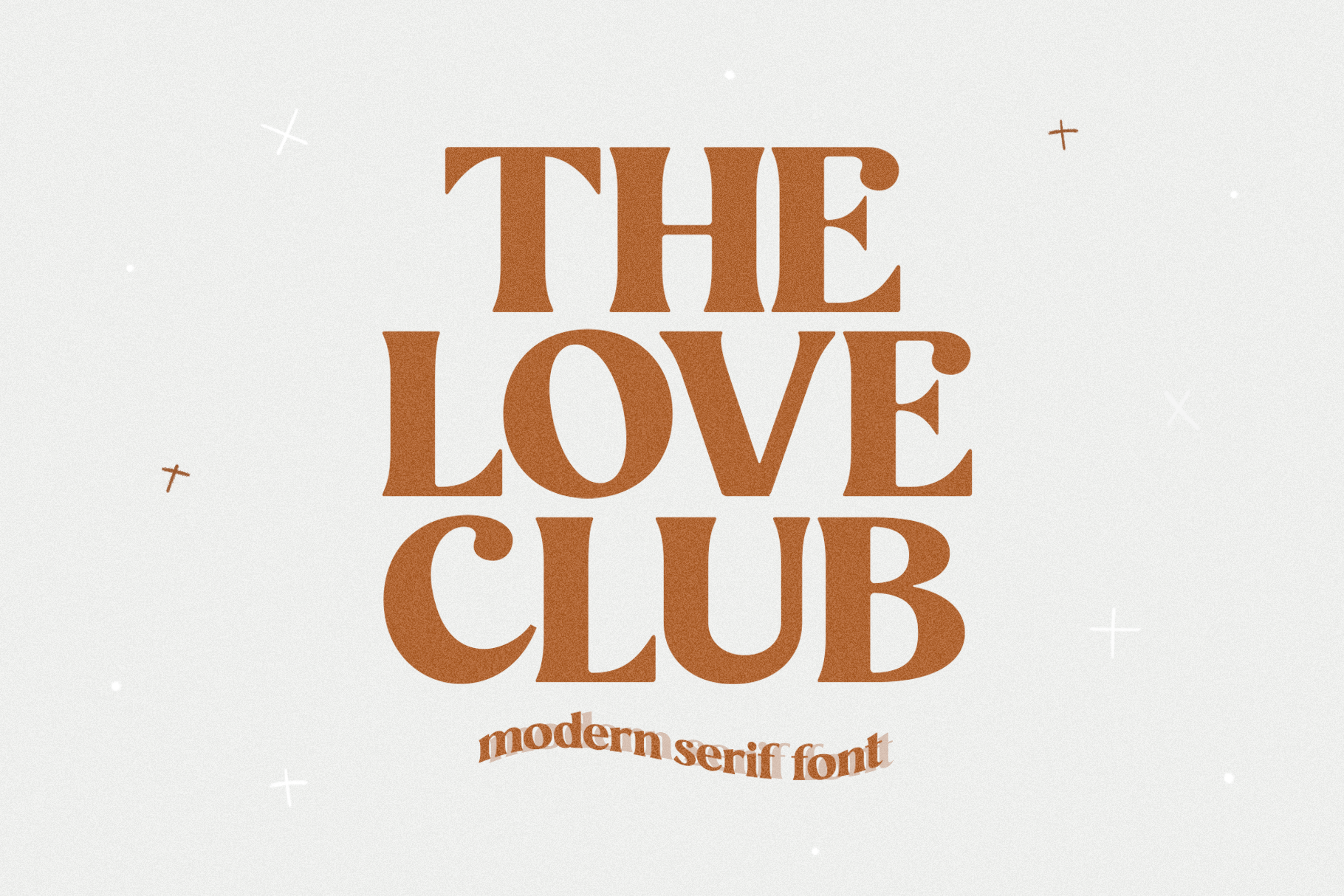
The Love Club | Modern Serif Font
The Love Club is a modern serif font with a vintage feel!
This font is perfect for editorial design, logos, branding, posters, magazines, shirts, mugs, social media, quotes, procreate designs and more!
The Love Club is the perfect mix of modern and moody!